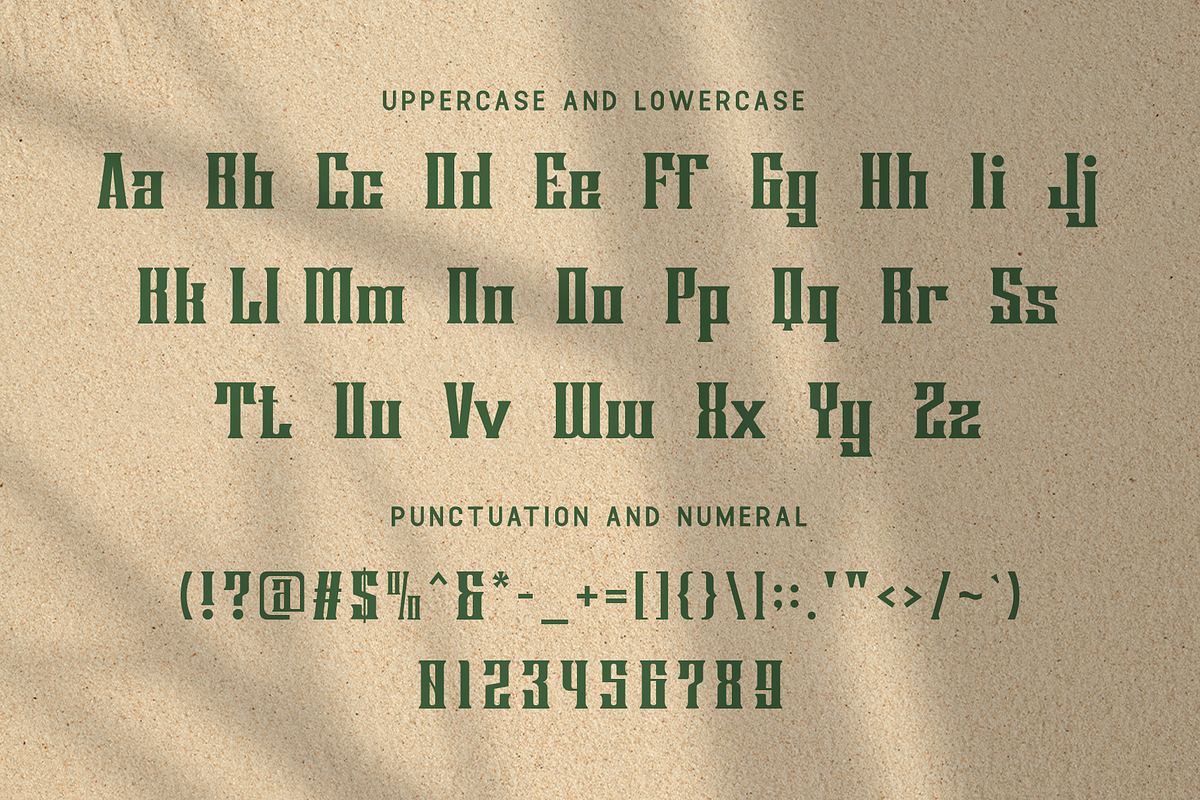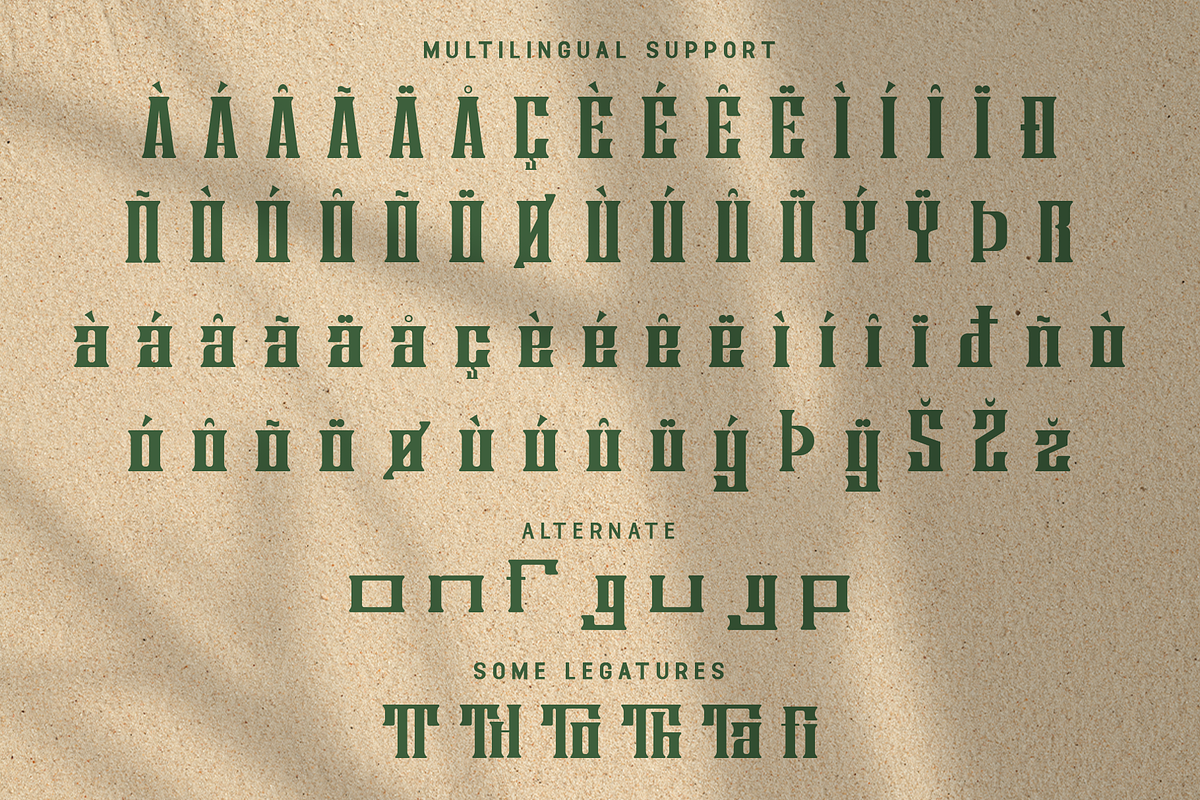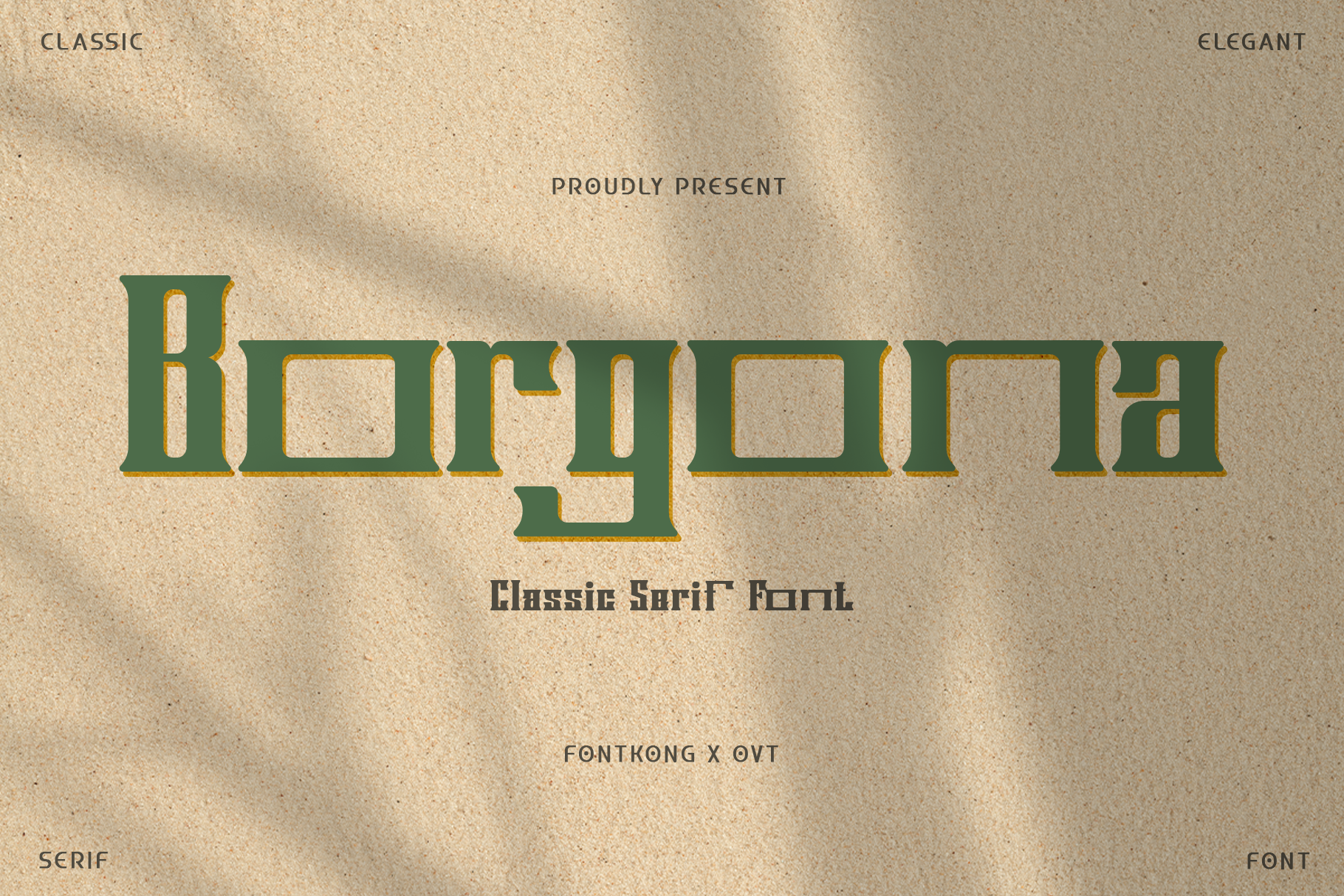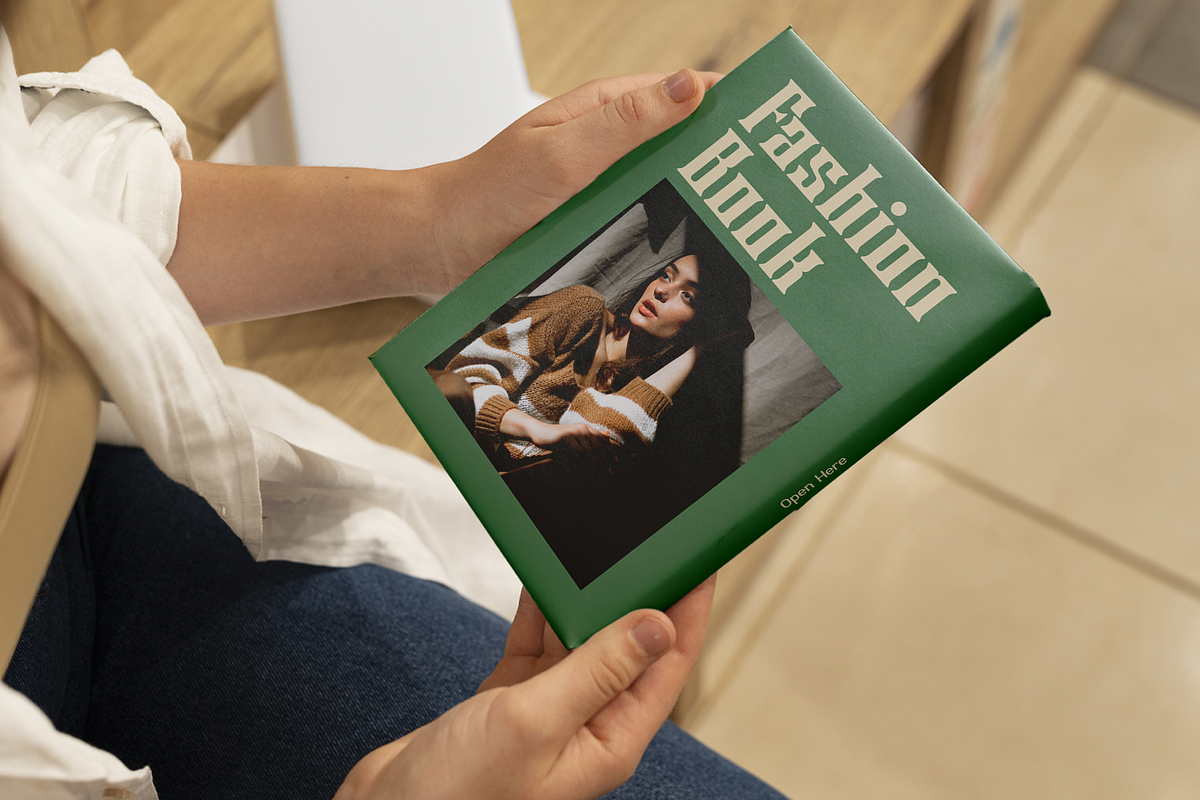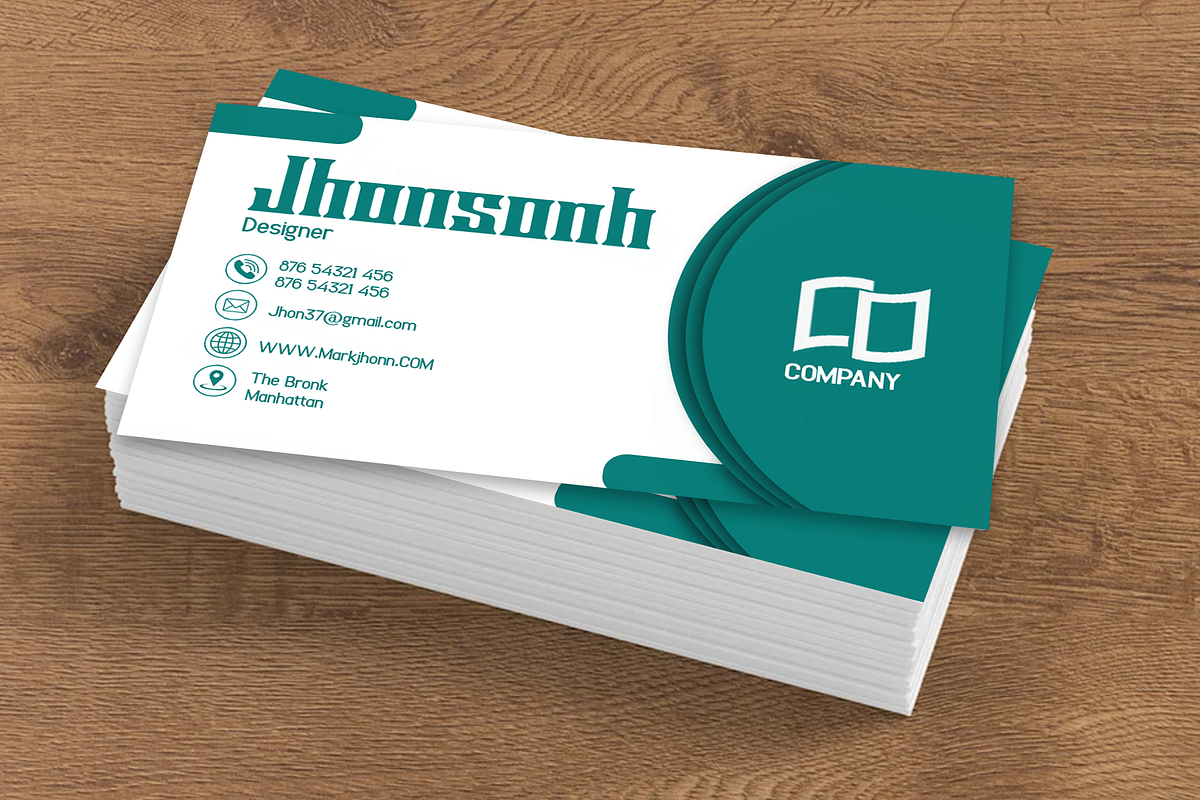
Borgona - Classic Serif Font
Introducing "Borgona," a classic serif font that epitomizes timeless elegance and enduring sophistication. With its graceful curves and refined serifs, Borgona adds a touch of class to any design project, from editorial layouts to branding materials.
Crafted with attention to detail, Borgona strikes the perfect balance between tradition and modernity. Whether you're designing a magazine spread, a logo, or a website, this font exudes professionalism and refinement.
Featuring a full range of characters, including uppercase and lowercase letters, numbers, and punctuation marks, Borgona offers versatility and flexibility for all your creative needs. Its clean lines and balanced proportions ensure readability and visual appeal across various applications.
Elevate your typography to new heights with the timeless beauty and sophistication of Borgona, where classic charm meets contemporary style.